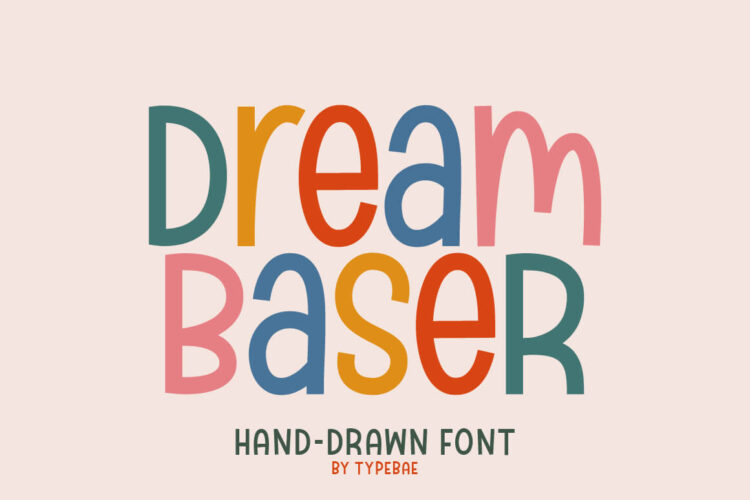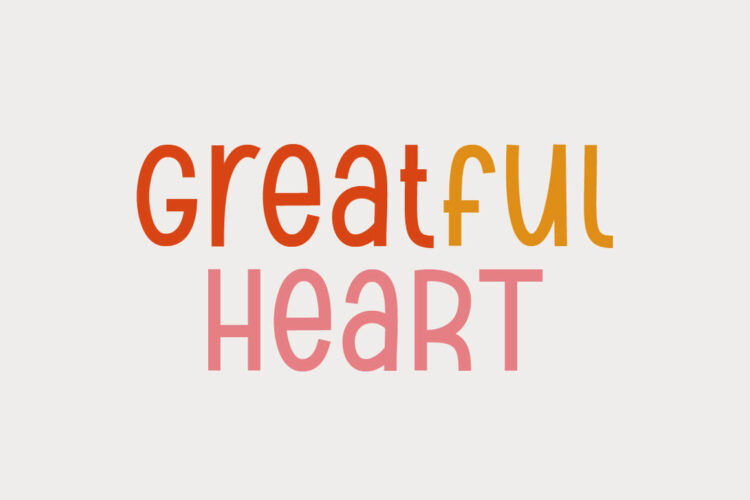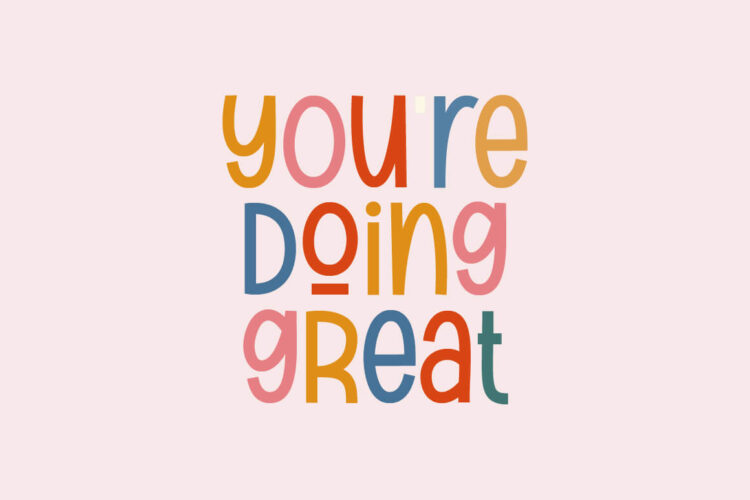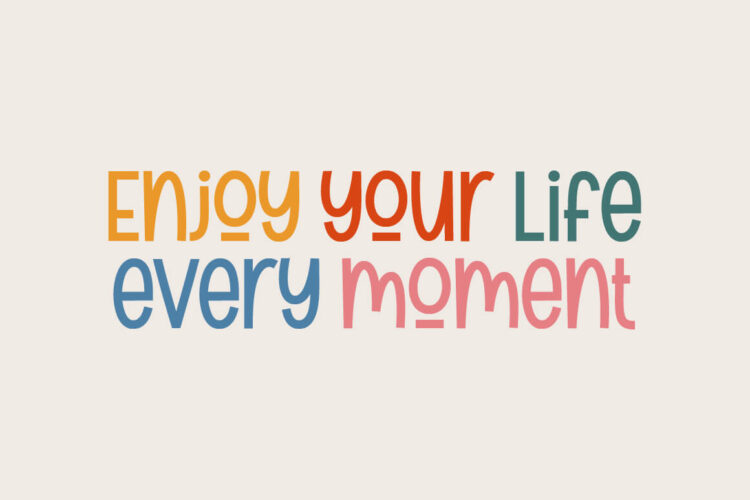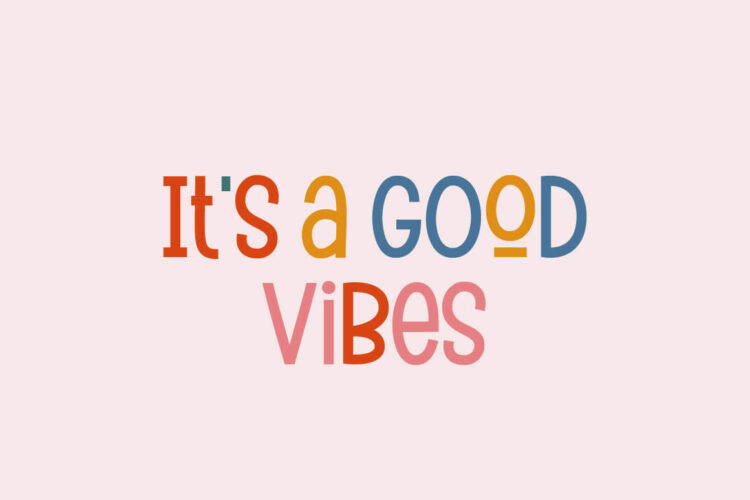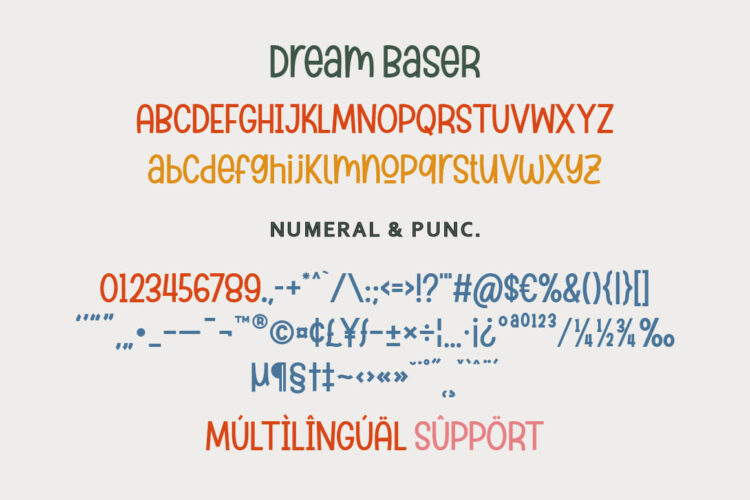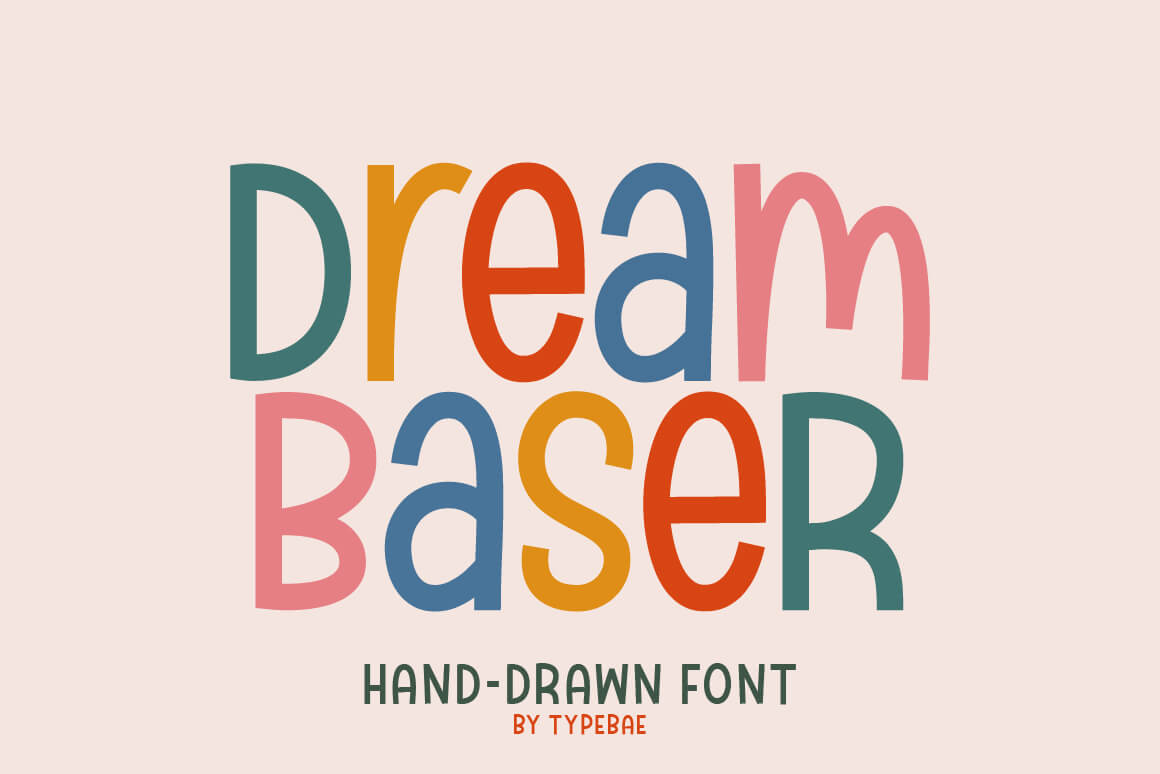
Dream Baser is a playful and adorable hand-drawn display font. You’ll enjoy the effects when you use it in your creative endeavors!
- Light, Regular & Bold
- Uppercase, Lowercase, Numeral & Punctuation
- PUA Encoded & Multilingual